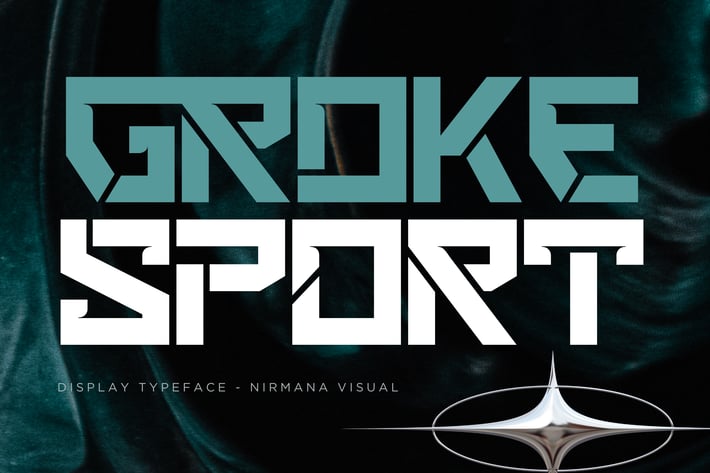
Groke Sport - Logo Font
Groke Sport Font offers beautiful typographic harmony for a diversity of design projects, including logos & branding, social media posts, advertisements & product designs.